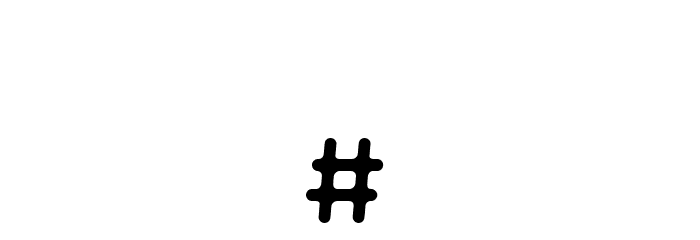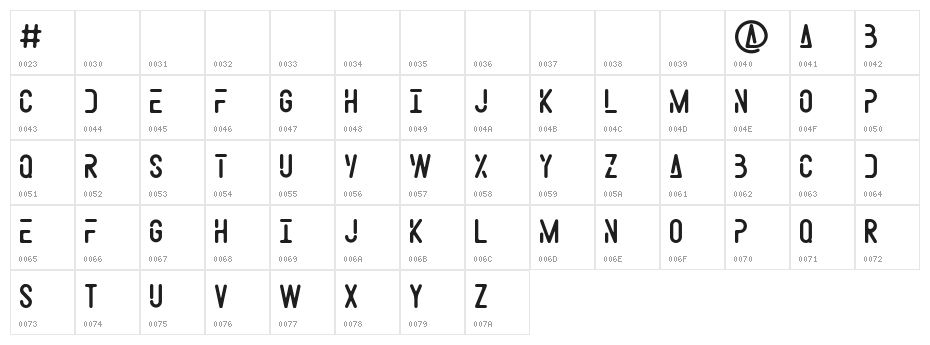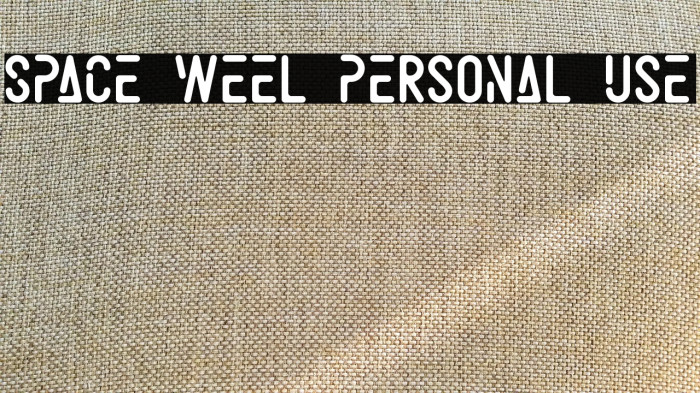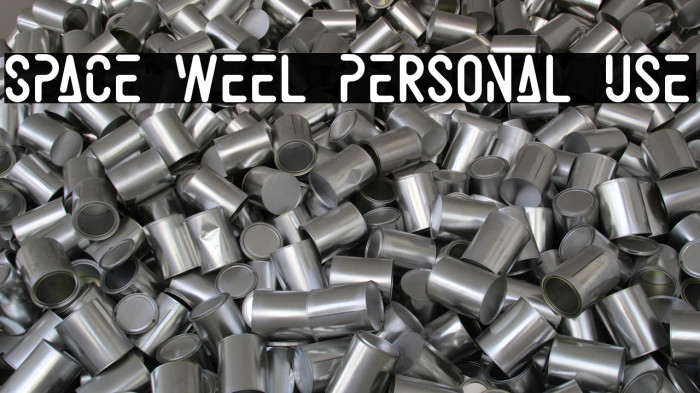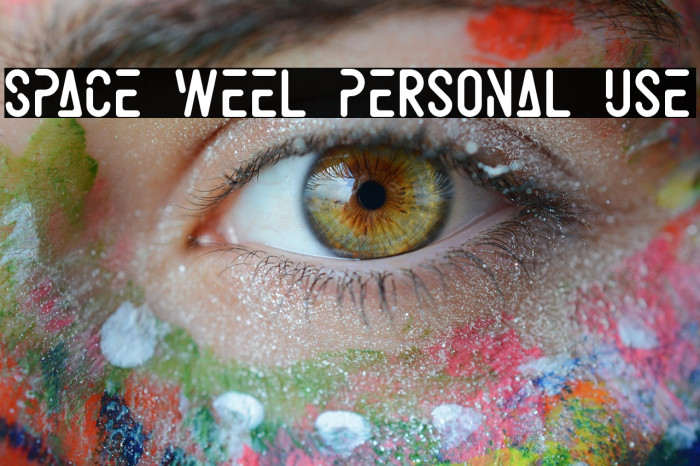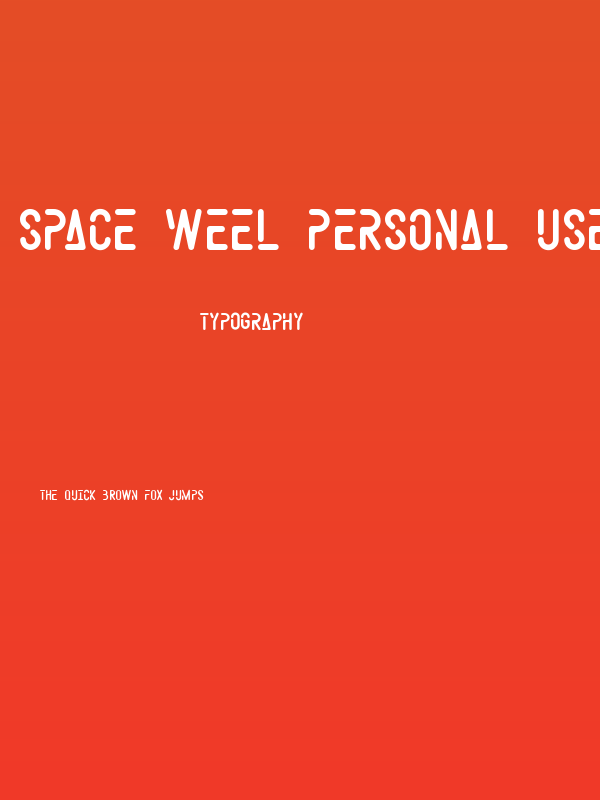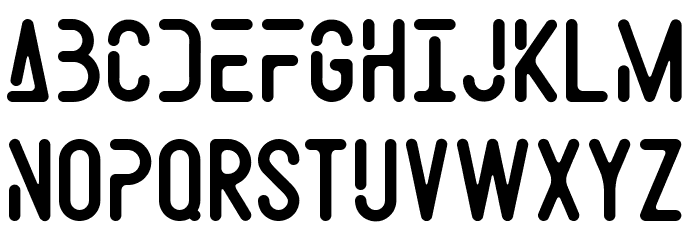
Space Weel Personal Use Font
Space Weel Personal Use Description
This font features a futuristic and geometric design with a stencil-like appearance. The characters are bold and rounded, with consistent stroke thickness throughout. The uppercase letters exhibit a unique cut-out style, giving them a modern and industrial feel. The font lacks lowercase letters and numbers, focusing solely on uppercase characters and a single special character. The design is clean and minimalistic, making it suitable for projects that require a contemporary and edgy look.
| Proposed Projects | Ideal for sci-fi themed posters, modern branding, tech-related logos, and futuristic UI designs. |